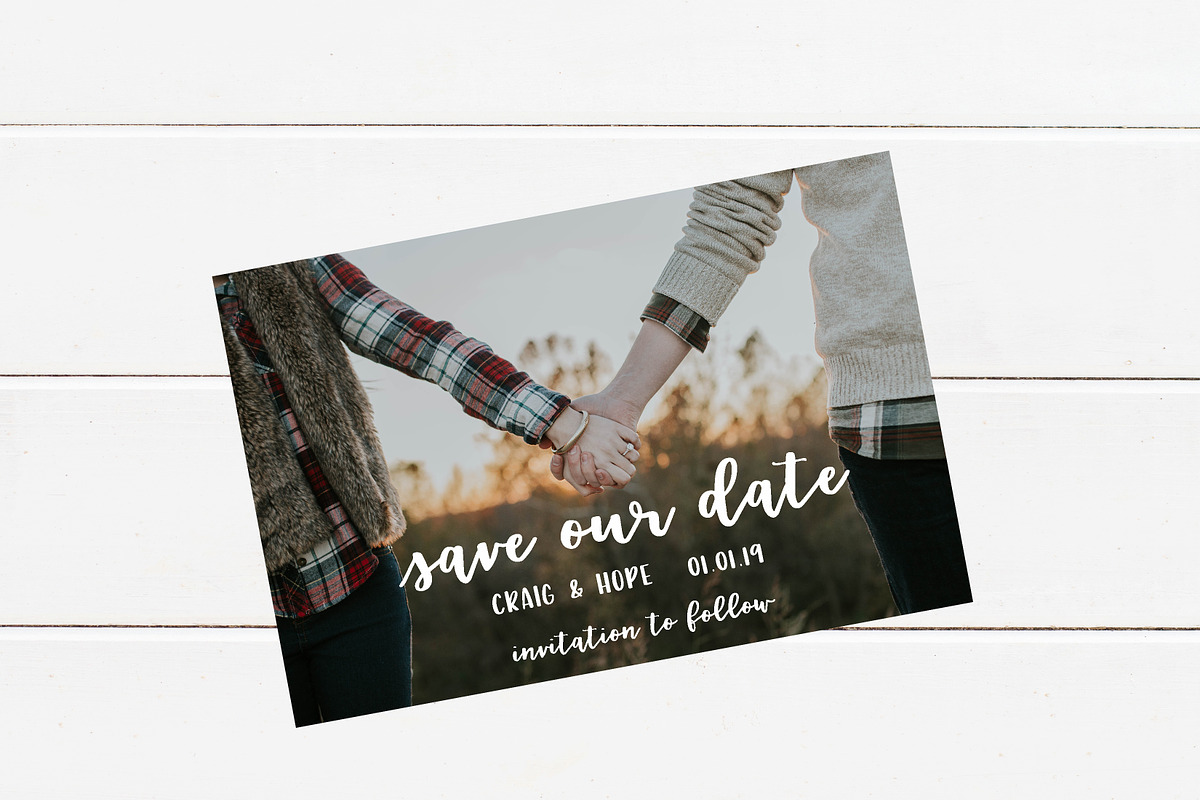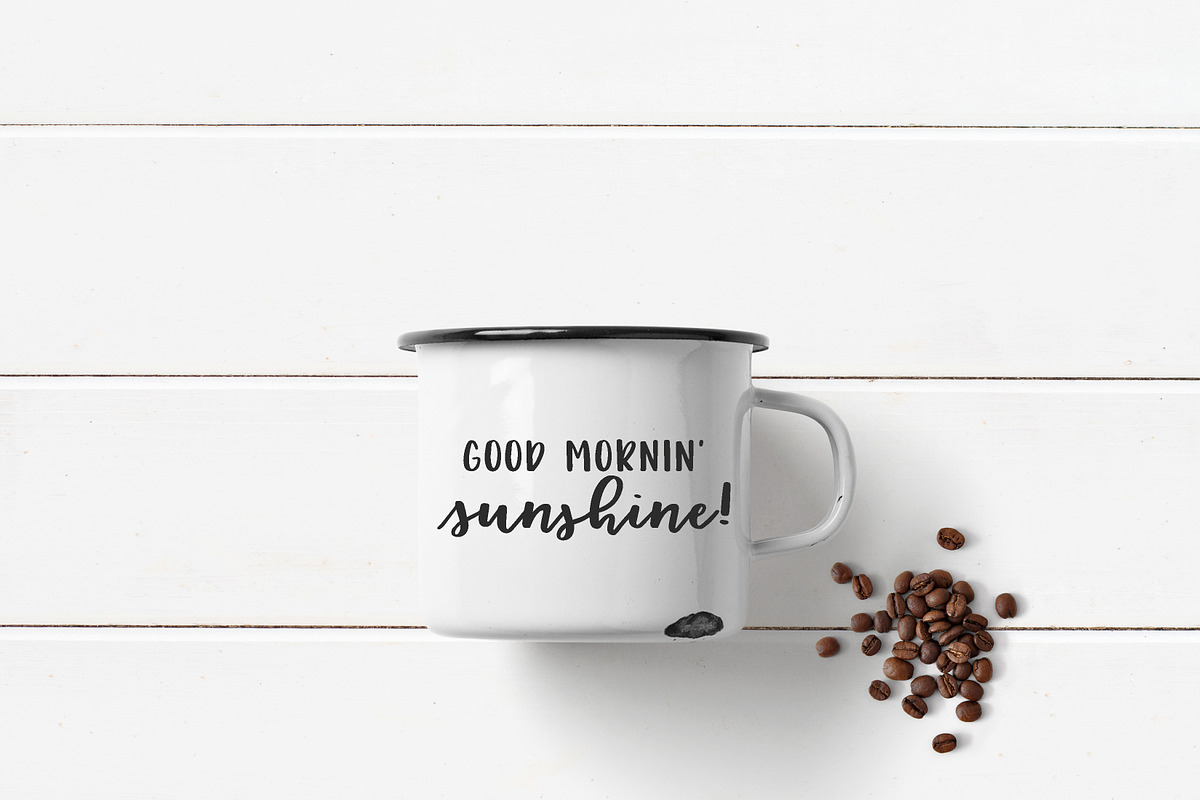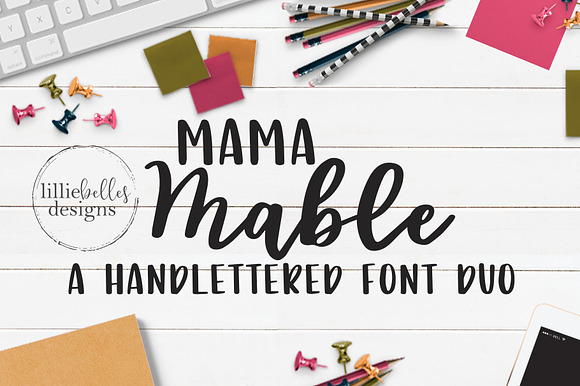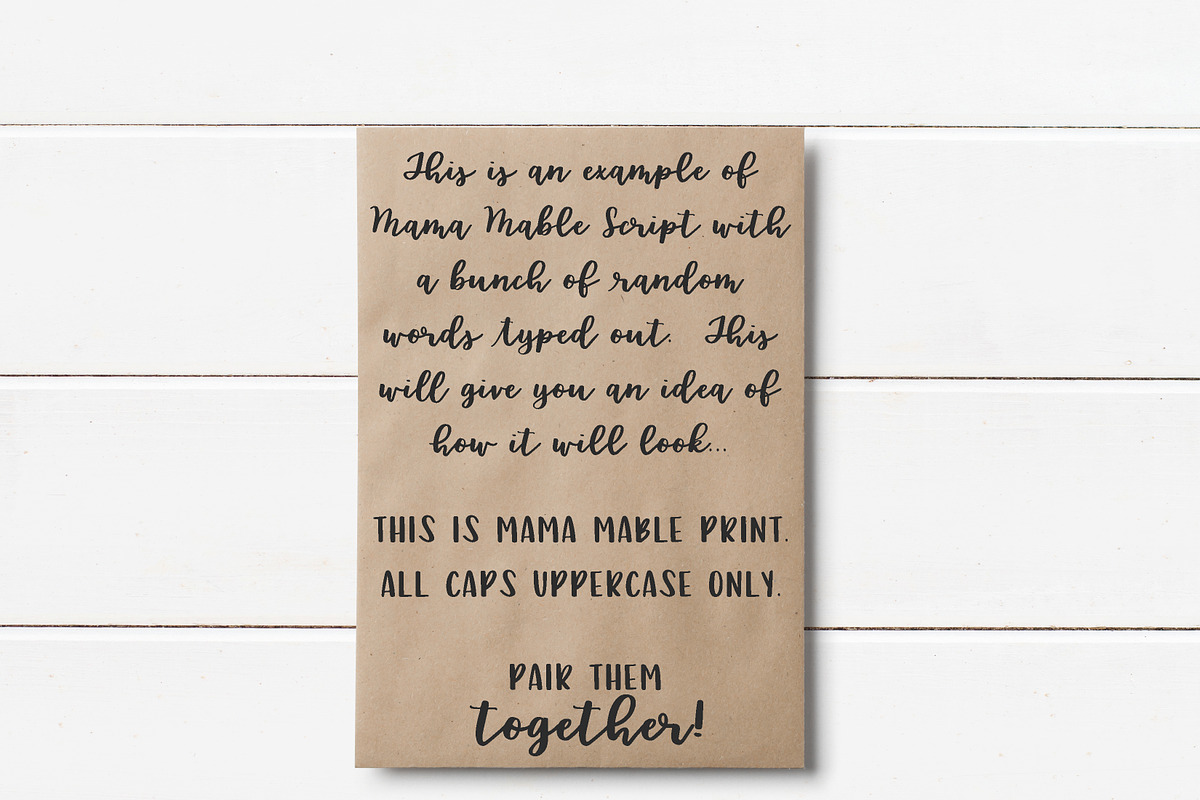
Mama Mable Handlettered Fonts
I'm so excited to introduce my latest font - Mama Mable!
Not only do you get Mama Mable Script with standard ligatures and alternate characters, but you also get Mama Mable Print - an all uppercase Print font! The two look great alone or paired together!
This font name is also special to me because it's my grandmother's name. I'm excited to show it to her and I thought of her the entire time I was working on it. It was handwritten with love...